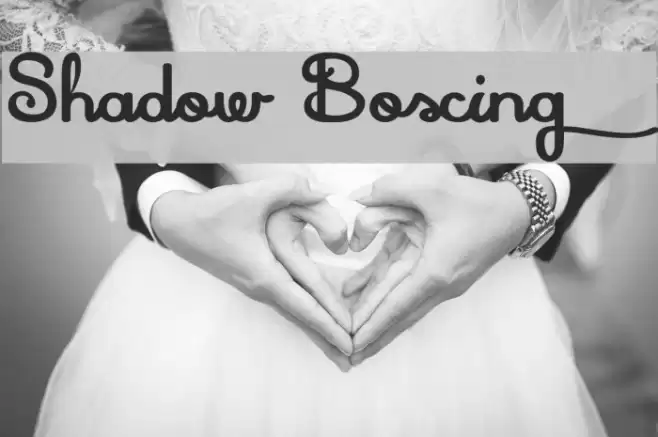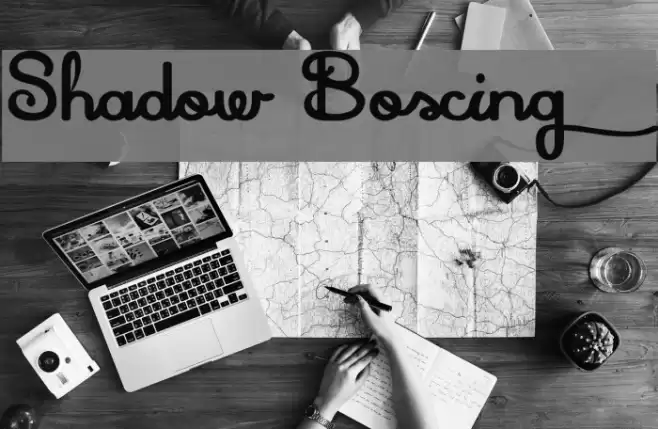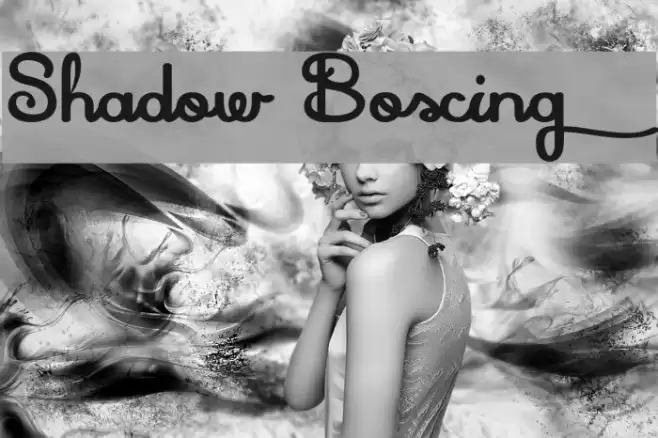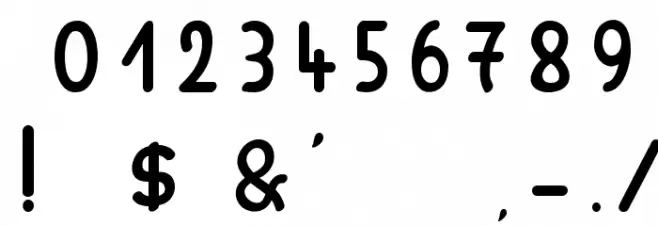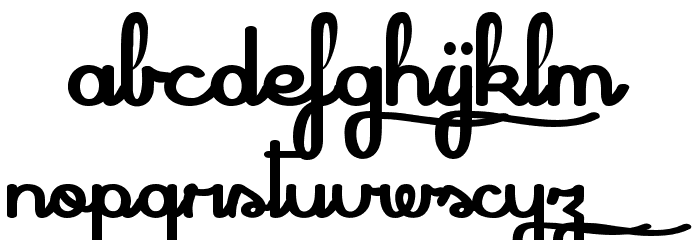
Shadow Boxing Font
Shadow Boxing Description
This font features a playful and whimsical design, characterized by its bold, rounded strokes and decorative elements. The uppercase letters exhibit a unique flair with loops and curls, adding a touch of elegance and creativity. The lowercase letters maintain a consistent style, with some characters extending below the baseline, enhancing its artistic appeal. The numerals are clear and legible, matching the overall aesthetic. Special characters are thoughtfully designed to complement the font's playful nature. This font is ideal for projects that require a fun and engaging visual style.
A playful, bold font with decorative loops and curls, perfect for creative projects from Uncategorized fonts.
- Proposed Projects: Ideal for children's books, playful branding, greeting cards, and creative posters.